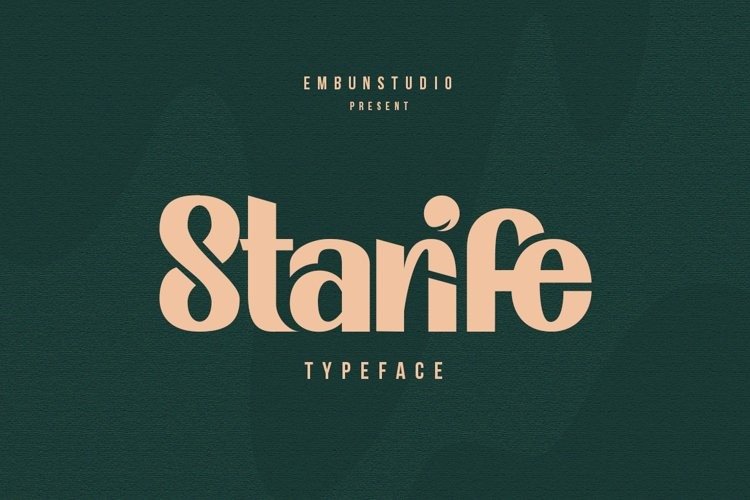
Starife Font
Starife Display Font a display sans serif with luxury, clean, chic, and visual elegance with alternatives, ligatures, multilingual suport. Perfect for editorial projects, Logo design, Clothing Branding, product packaging, magazine headers, or simply as a stylish text overlay to any background image.